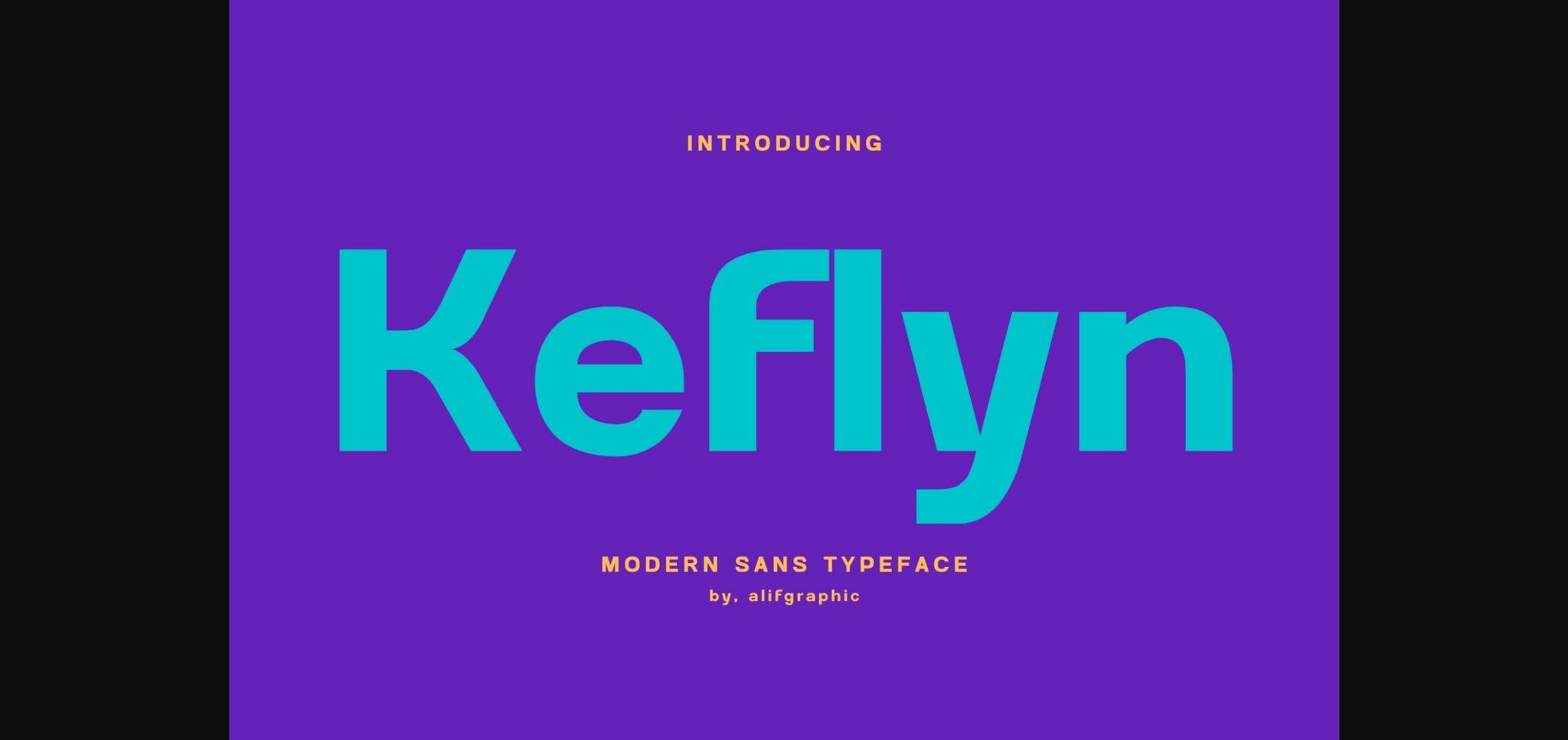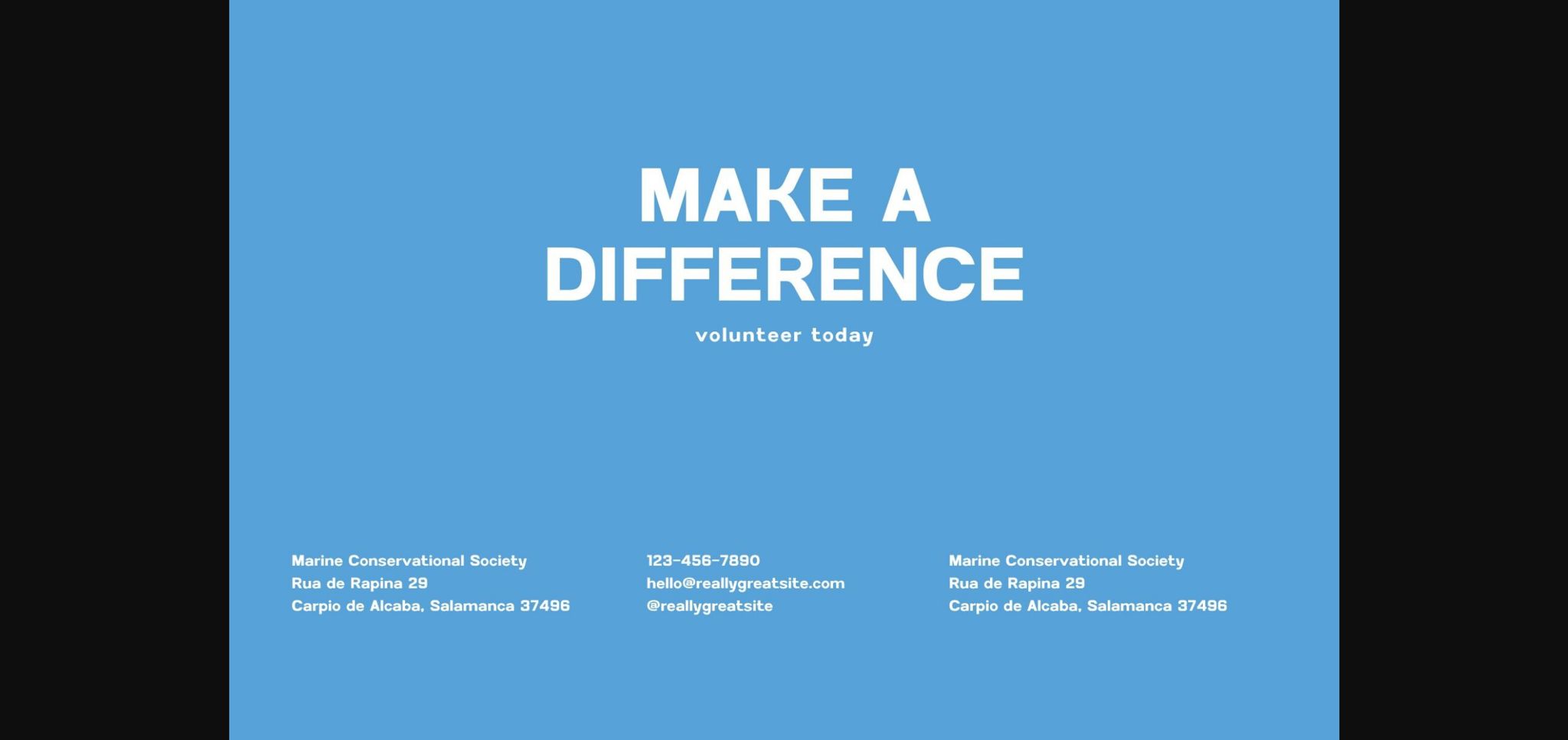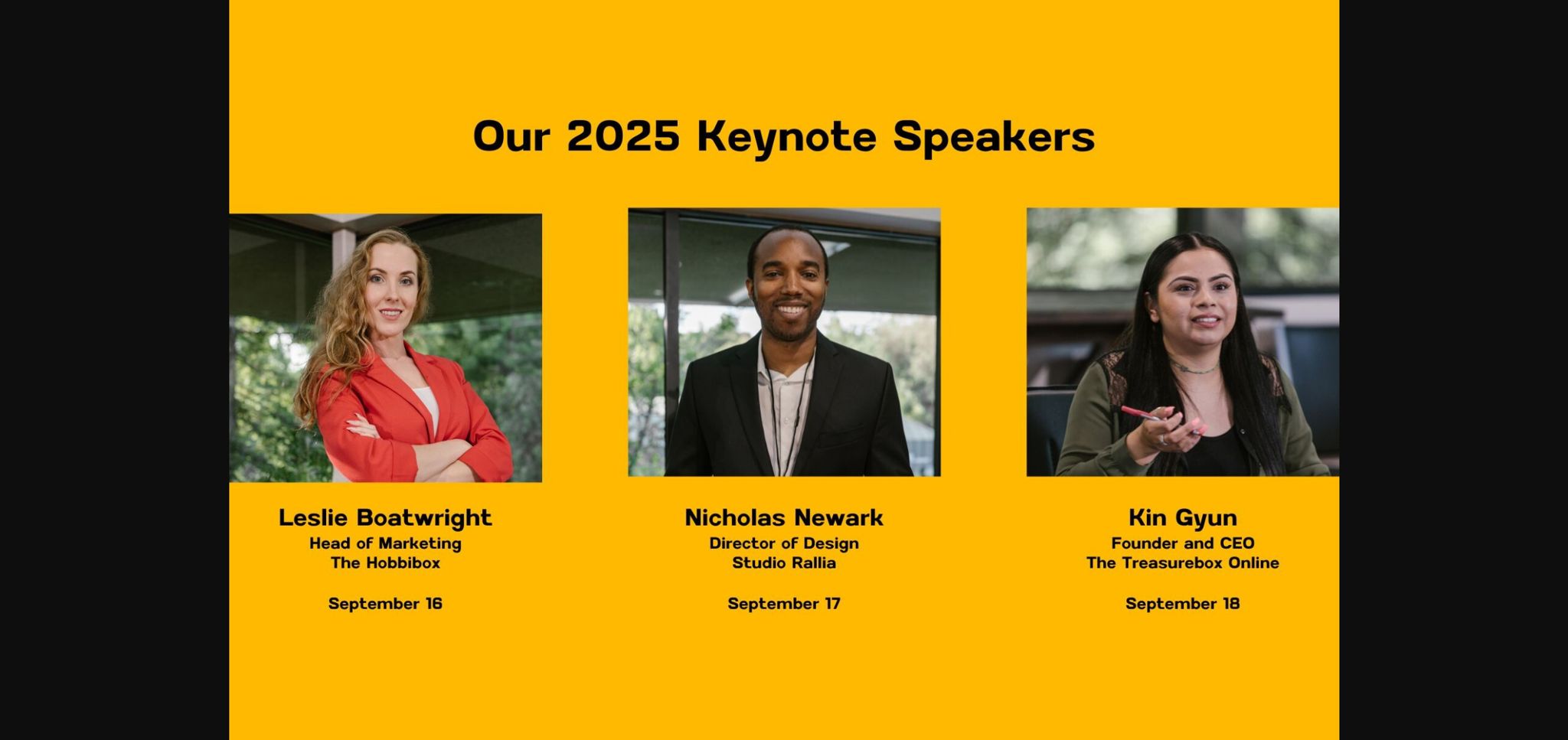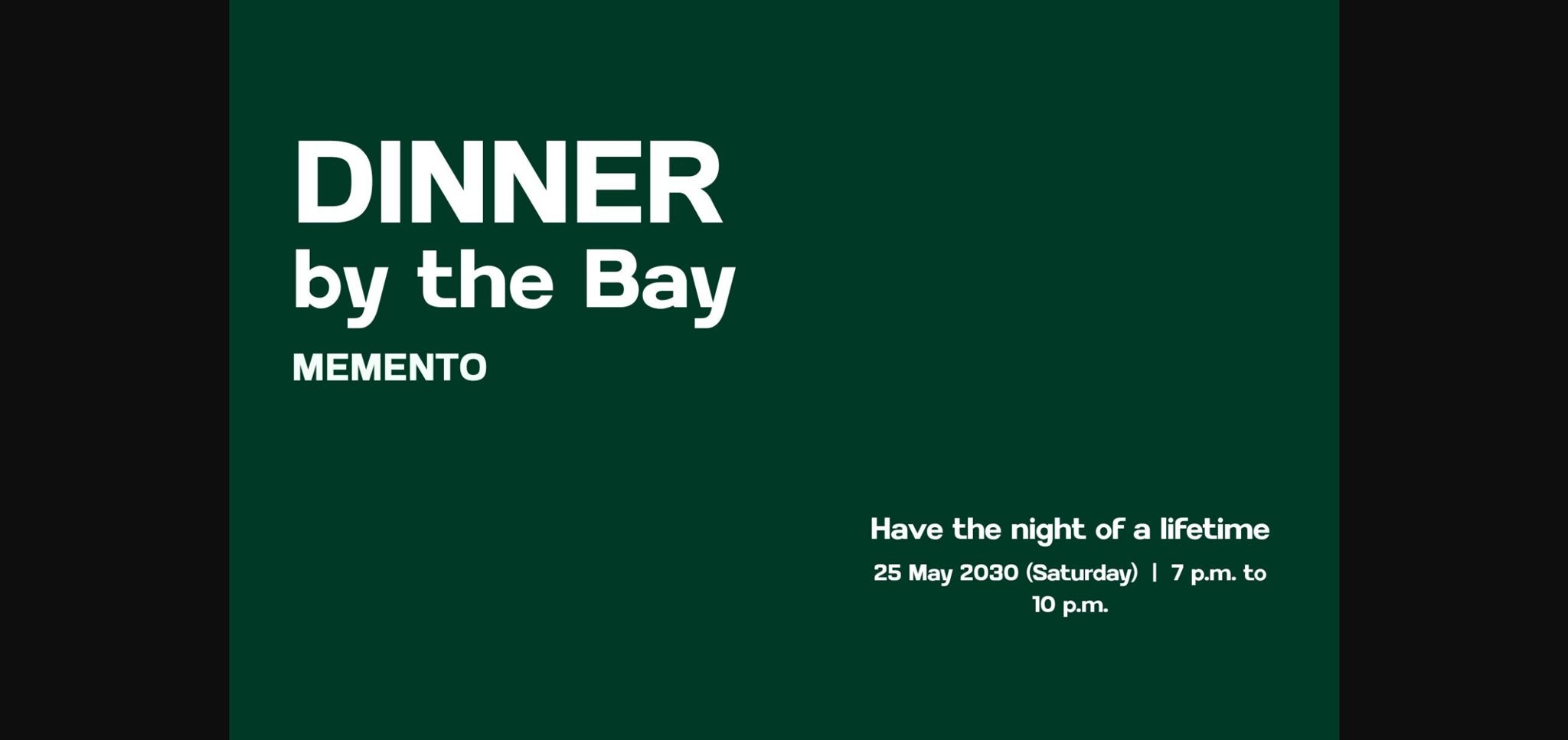
Keflyn Font
About Keflyn Font
Introducing “Keflyn” – a modern sans-serif font that embodies sleek simplicity. With clean lines and a contemporary aesthetic, Keflyn brings a touch of sophistication to your design projects. Ideal for a wide range of applications, from minimalist branding to clean, professional layouts, Keflyn ensures a timeless and versatile typographic solution. Elevate your visual identity with this effortlessly stylish sans-serif font.